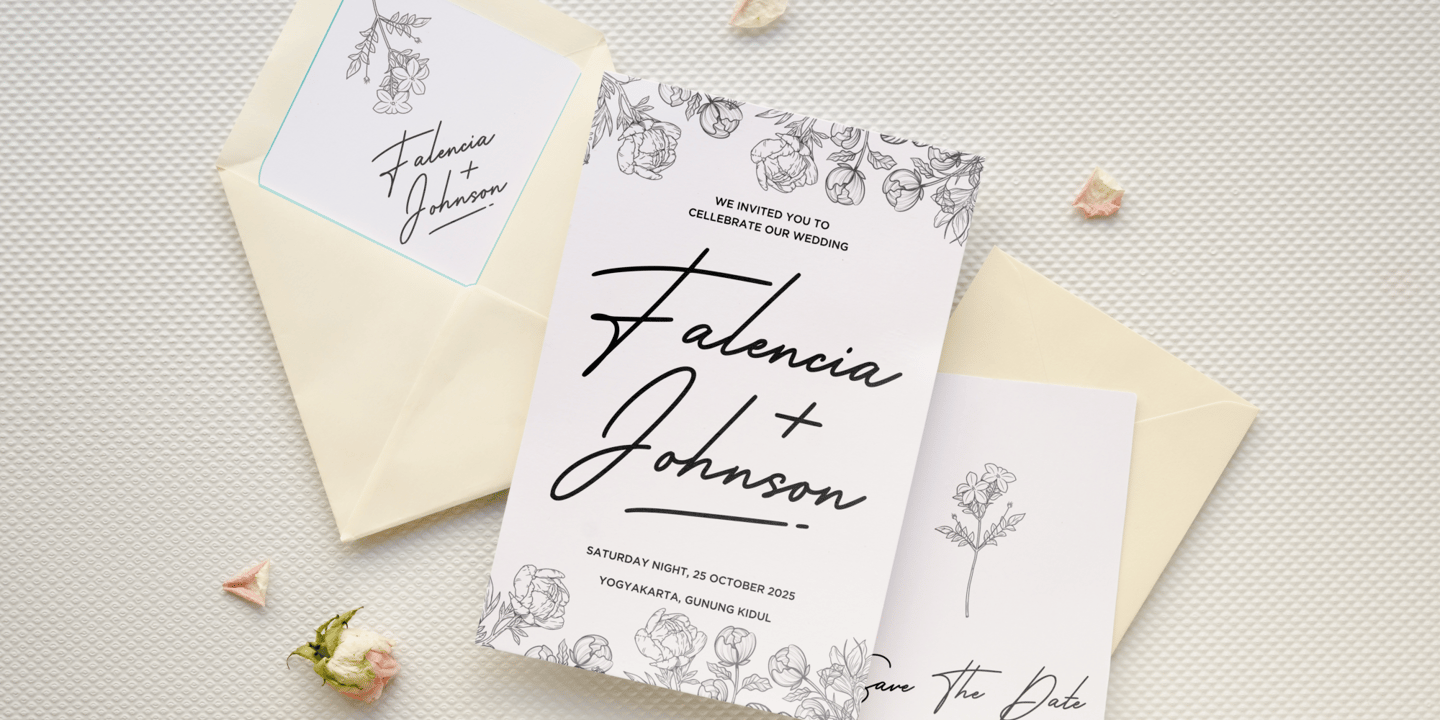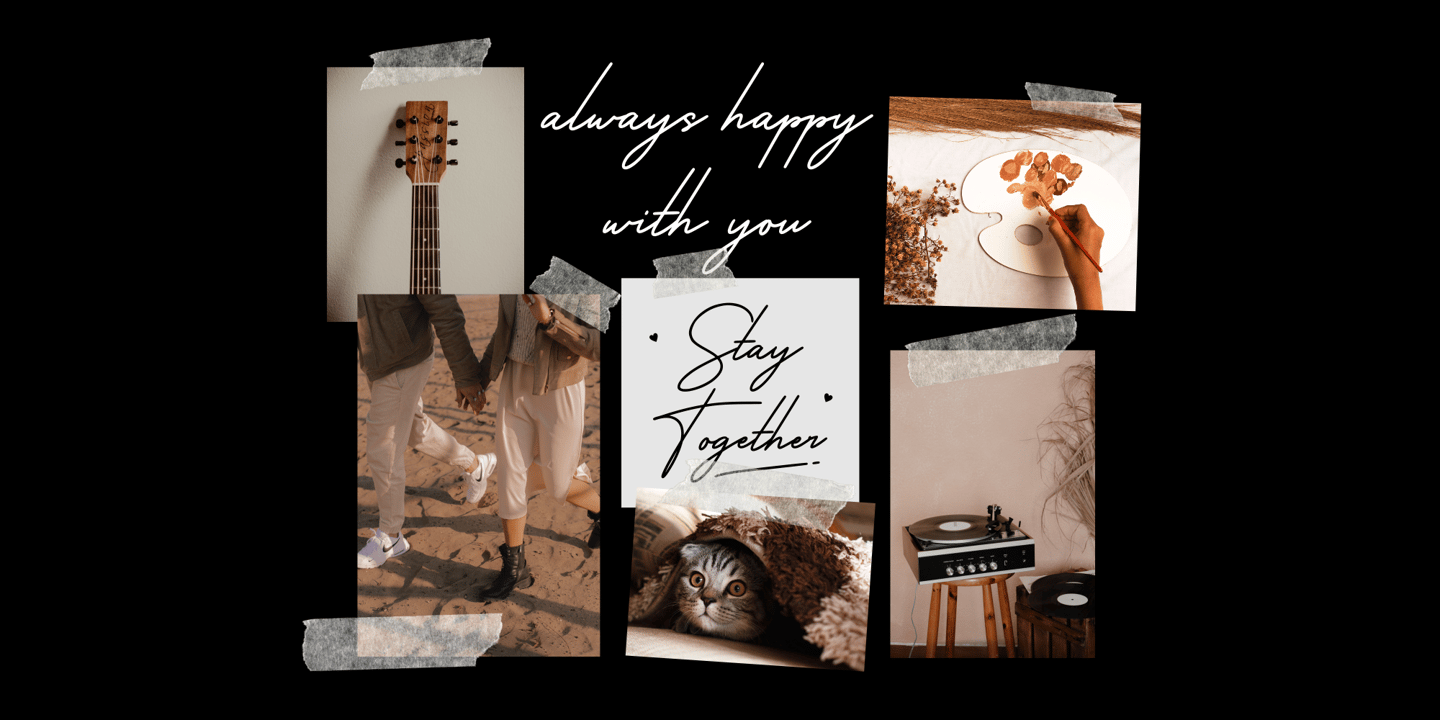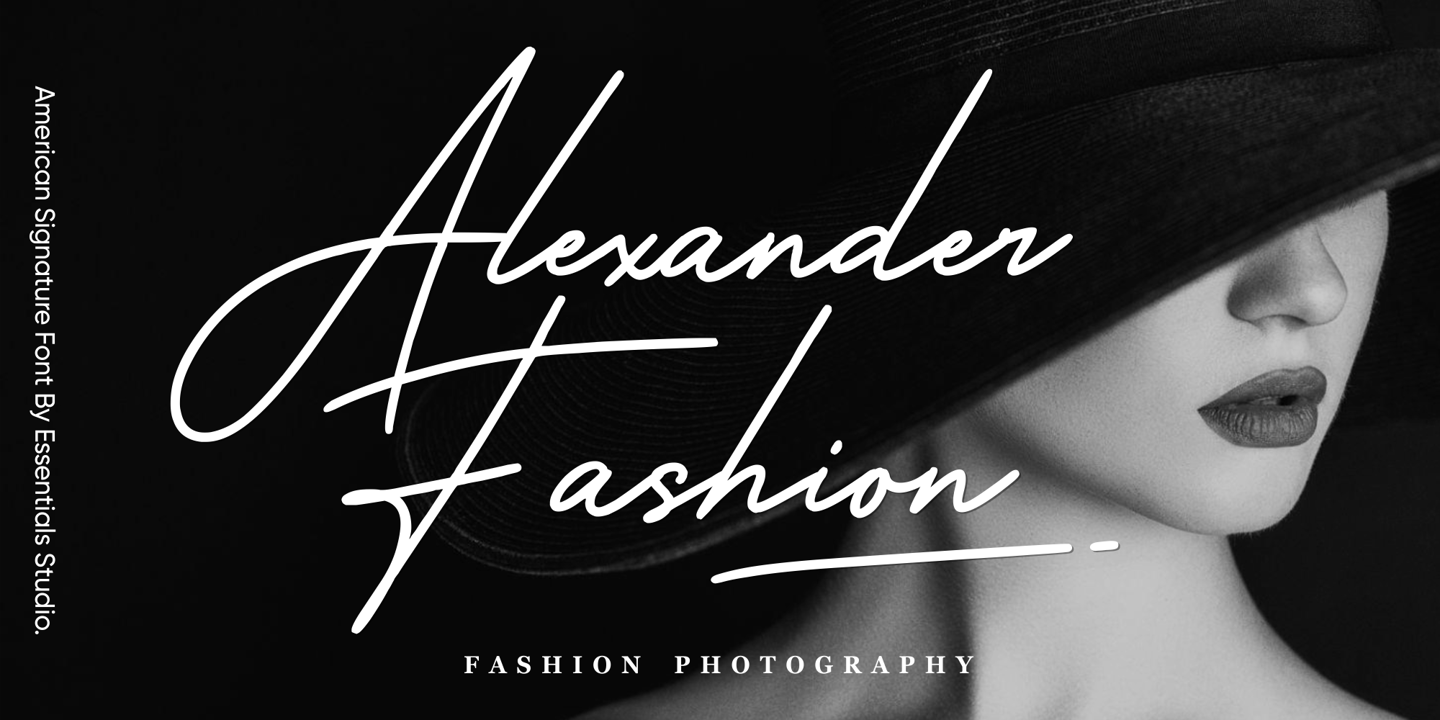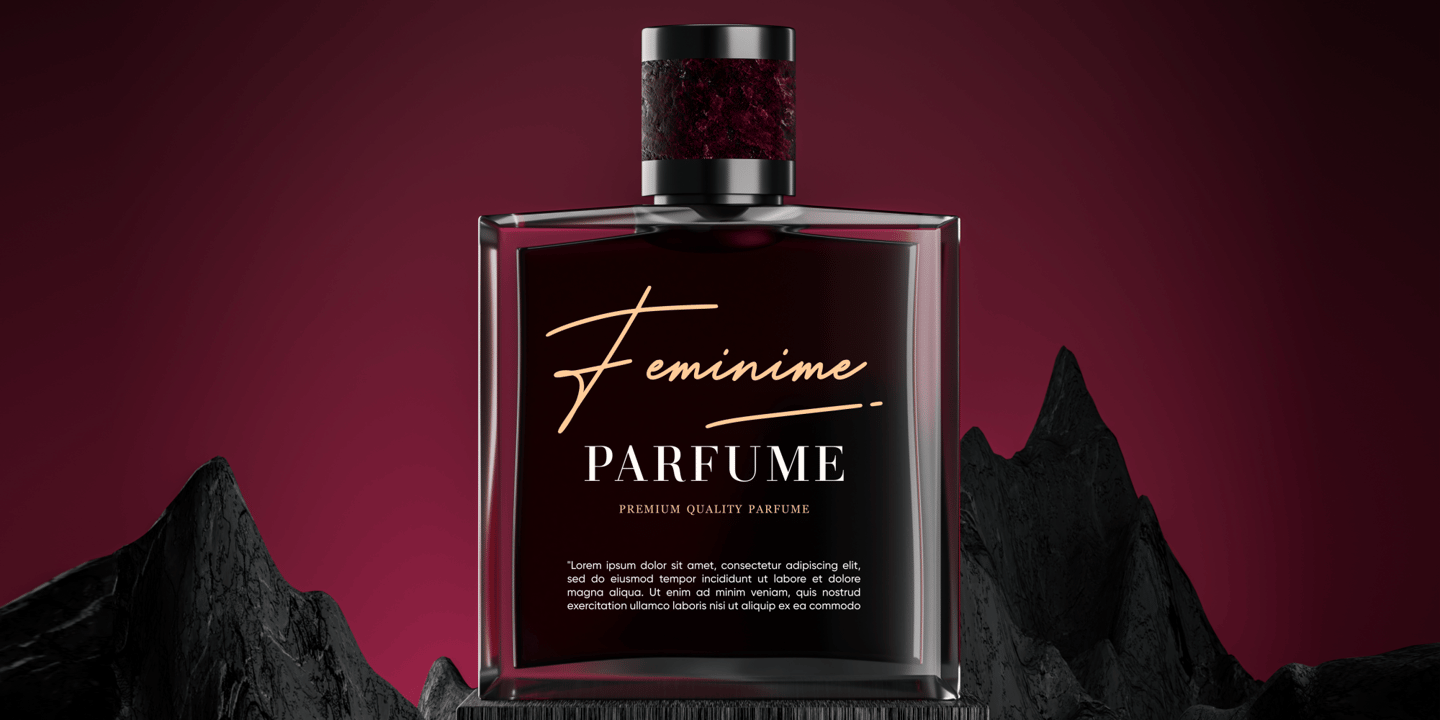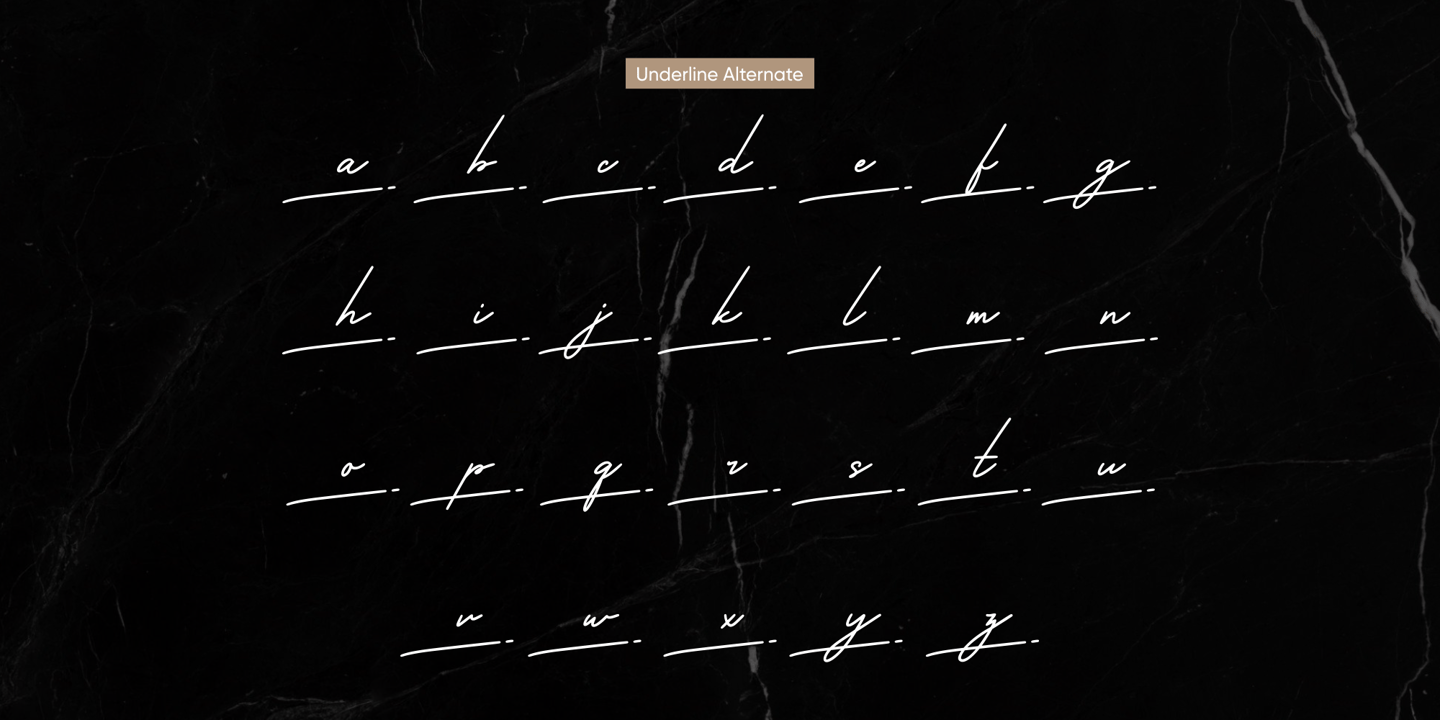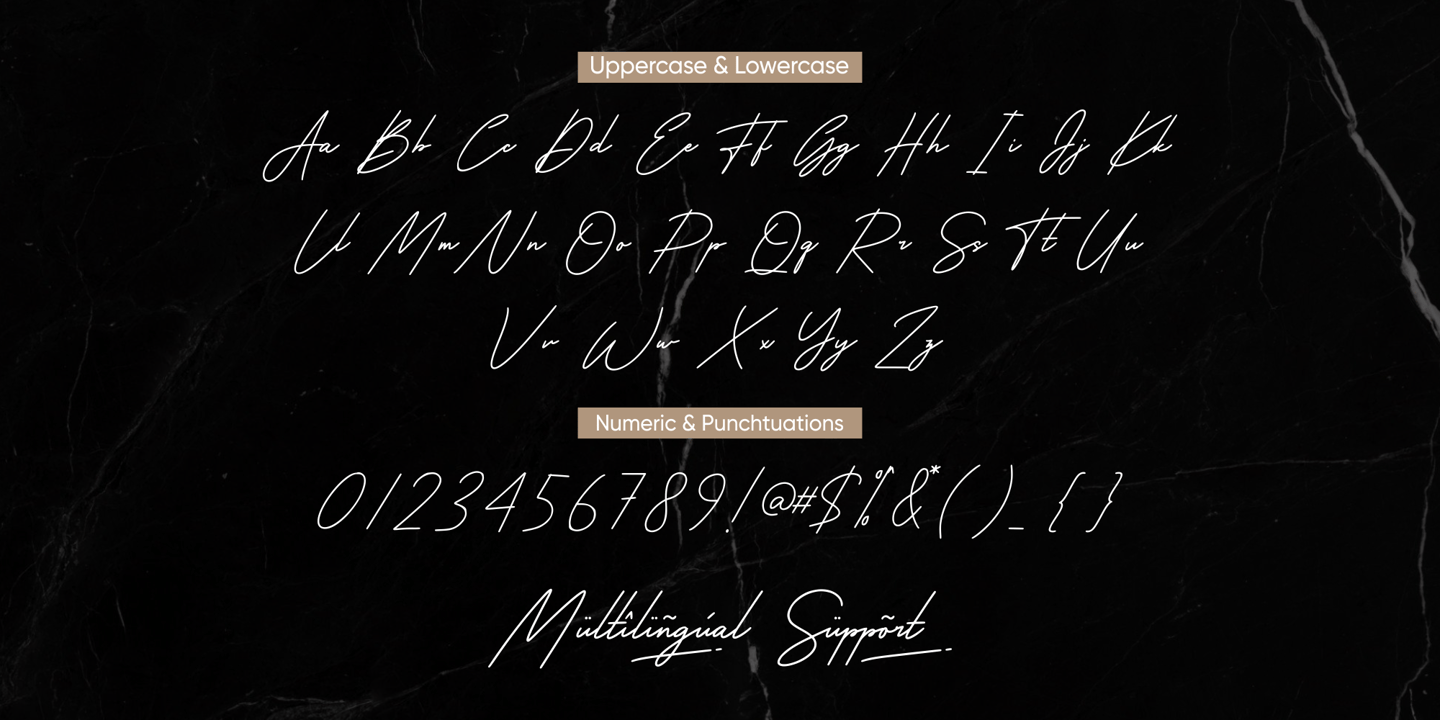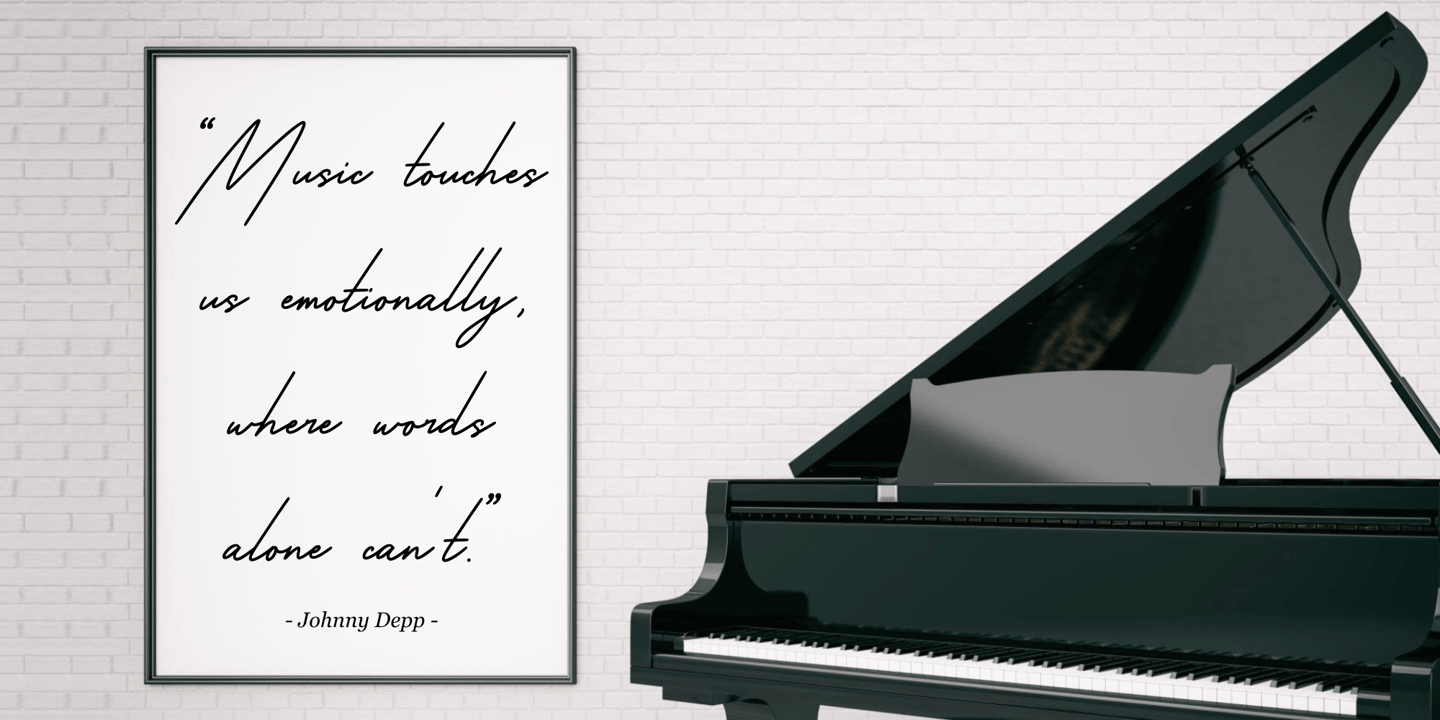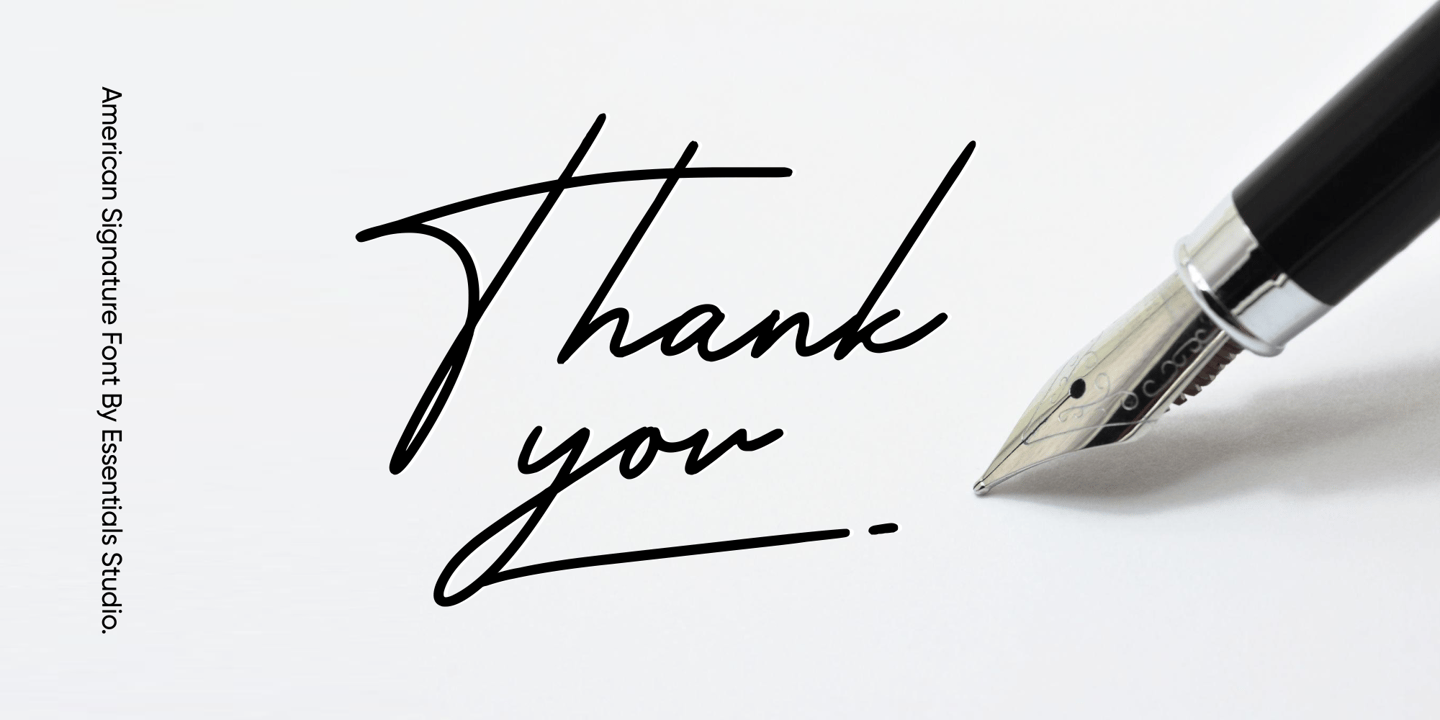
Proudly Present, American Signature
American Signature Is a A Monoline Signature Font
American Signature is perfect for product packaging, branding project, megazine, social media, wedding, or just used to express words above the background.